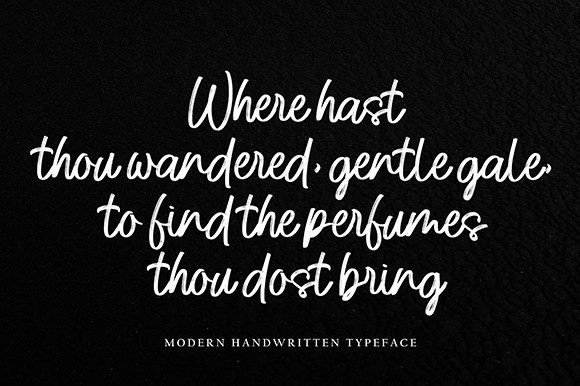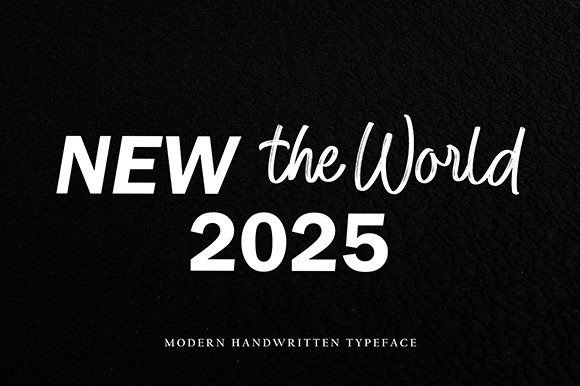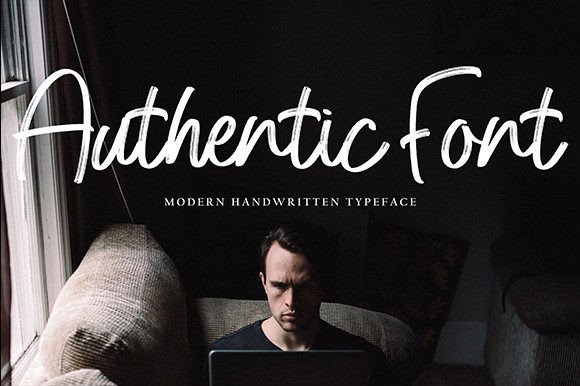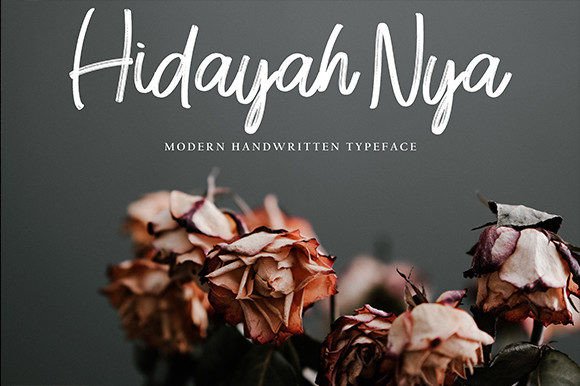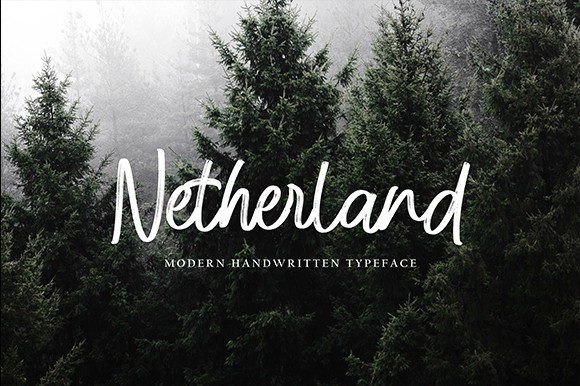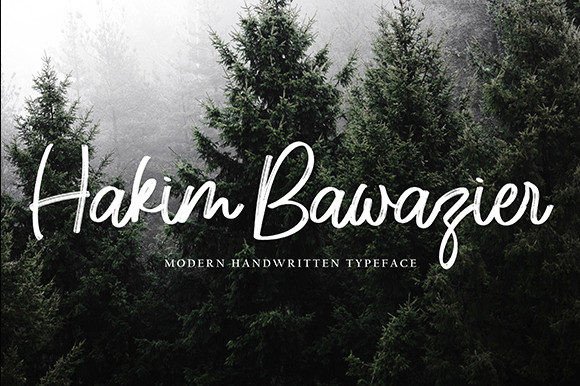
Introducing Florence Edith Font: The Perfect Modern Style Companion for Designers and Crafters
In the world of typography, a fresh font can make all the difference in bringing a project to life. For designers and crafters looking for a modern style to elevate their work, Florence Edith Font is an exciting new discovery. This versatile font is perfect for a wide range of projects, from quotes and logos to blog headers, posters, branding, letters, invitations, and stationery.
What Makes Florence Edith Font Stand Out?
Florence Edith Font boasts a modern style that is both clean and elegant. Its fresh design makes it an excellent choice for anyone looking to add a touch of sophistication to their projects. Whether you’re working on a professional design or a personal craft, this font is sure to impress.
The versatility of Florence Edith Font is one of its most significant advantages. It’s suitable for a wide variety of applications, including:
- Quotes: Add a modern twist to inspirational quotes, making them perfect for social media posts, posters, or even merchandise.
- Logos: Create a professional and memorable logo for your brand, business, or personal project.
- Blog Headers: Elevate your blog’s style with elegant and readable headers that grab your readers’ attention.
- Posters: Design eye-catching posters for events, promotions, or informational campaigns.
- Branding: Develop a consistent brand identity with a font that exudes modernity and sophistication.
- Letters: Add a personal touch to your letters, making them perfect for special occasions or business correspondence.
- Invitations: Create beautiful and elegant invitations for weddings, parties, or other events.
- Stationery: Design stylish stationery that reflects your personality or brand.
Why Choose Florence Edith Font?
There are several reasons why Florence Edith Font should be your go-to choice for your next project:
- Modern Style: Florence Edith Font features a modern design that will make your project stand out.
- Versatility: Its versatility ensures that it can be used for a wide range of applications.
- Elegance: The font’s elegant design makes it perfect for projects that require a touch of sophistication.
- Readability: Florence Edith Font is highly readable, ensuring that your message is communicated effectively.
Tips for Using Florence Edith Font
To get the most out of Florence Edith Font, consider the following tips:
- Pair it with Other Fonts: Experiment with pairing Florence Edith Font with other fonts to create a unique and visually appealing combination.
- Adjust Font Sizes: Play with different font sizes to create visual hierarchy and emphasize important information.
- Use it Consistently: Use Florence Edith Font consistently throughout your project to create a cohesive look.
Florence Edith Font is an excellent addition to any designer’s or crafter’s toolkit. Its modern style, versatility, and elegance make it perfect for a wide range of projects. Whether you’re working on a professional design or a personal craft, Florence Edith Font is sure to elevate your work to the next level. So why wait? Discover the endless possibilities of Florence Edith Font and bring your projects to life with style and sophistication.